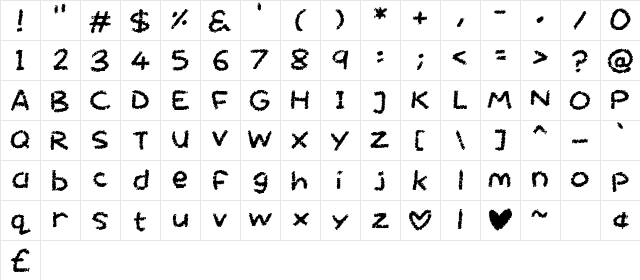
Chalktastic Regular Free Font
Chalktastic Regular
Design Context for Chalktastic
Chalktastic is a composed and adaptable typeface that performs quietly and consistently across a wide range of design contexts.